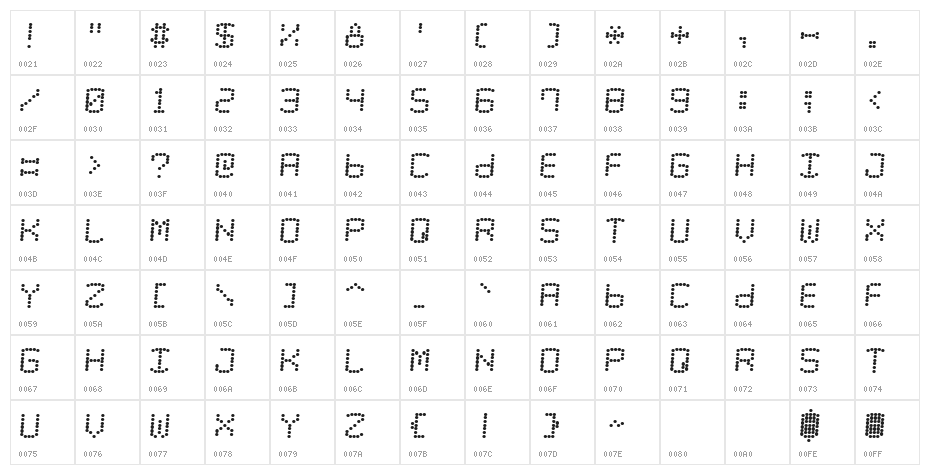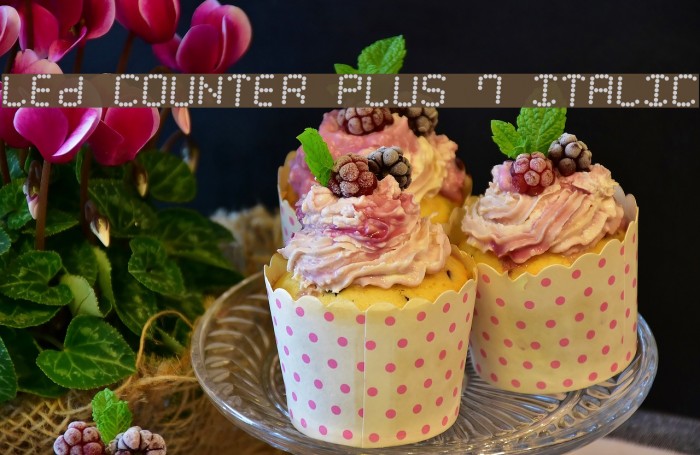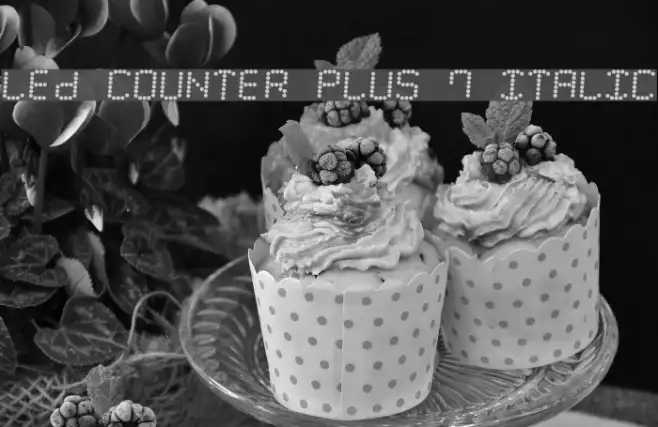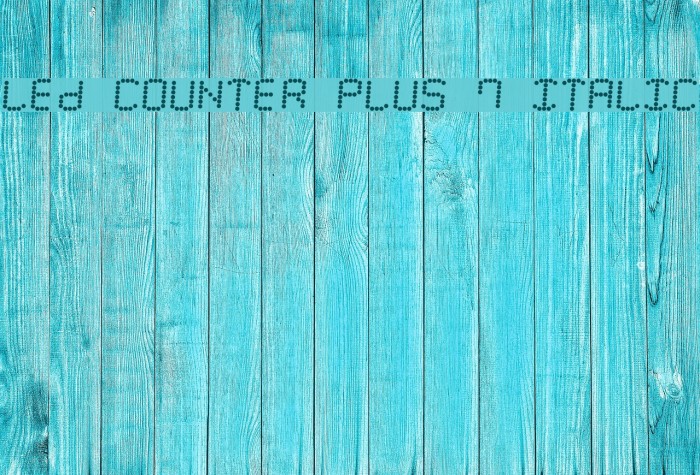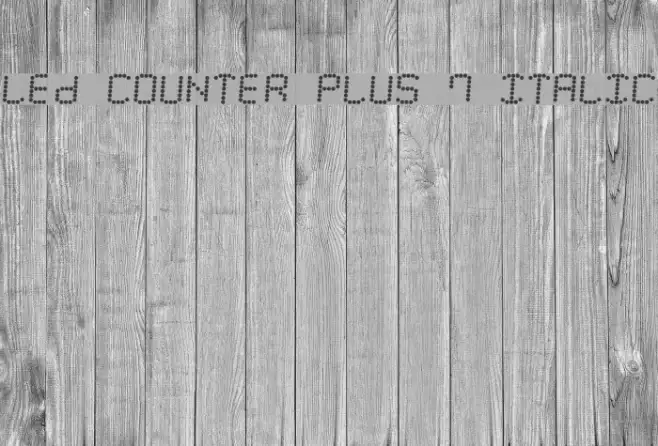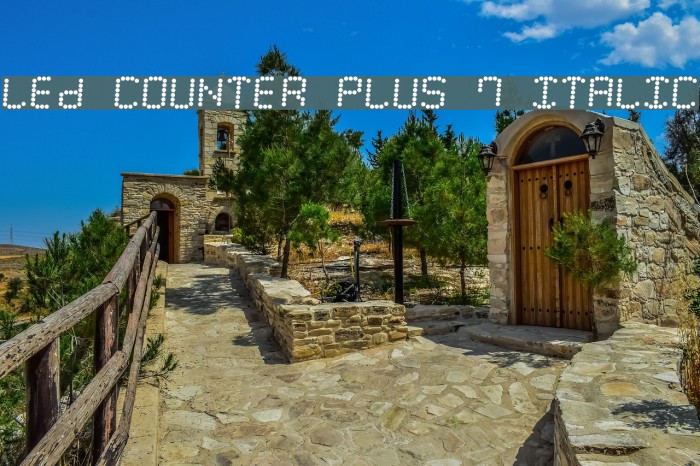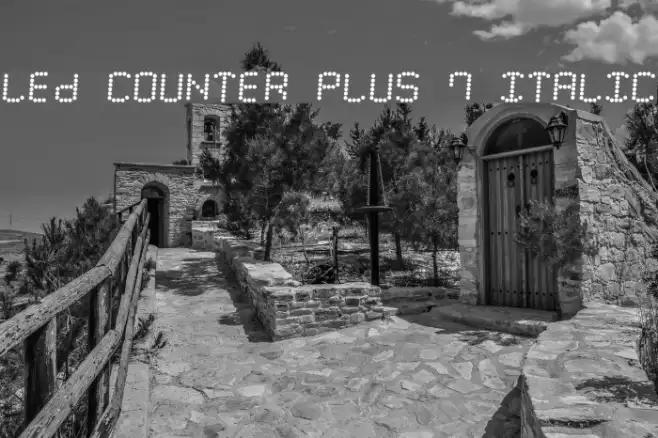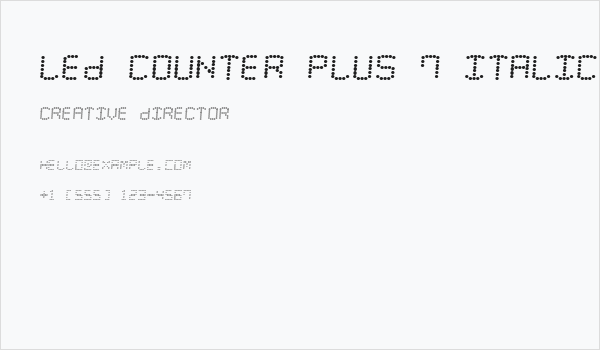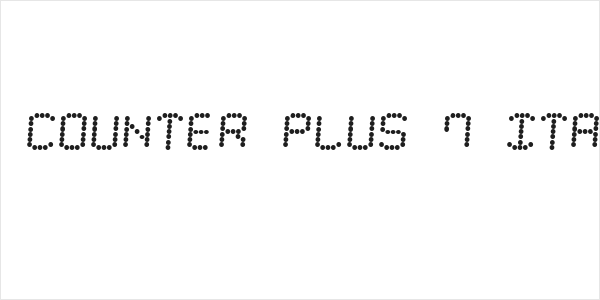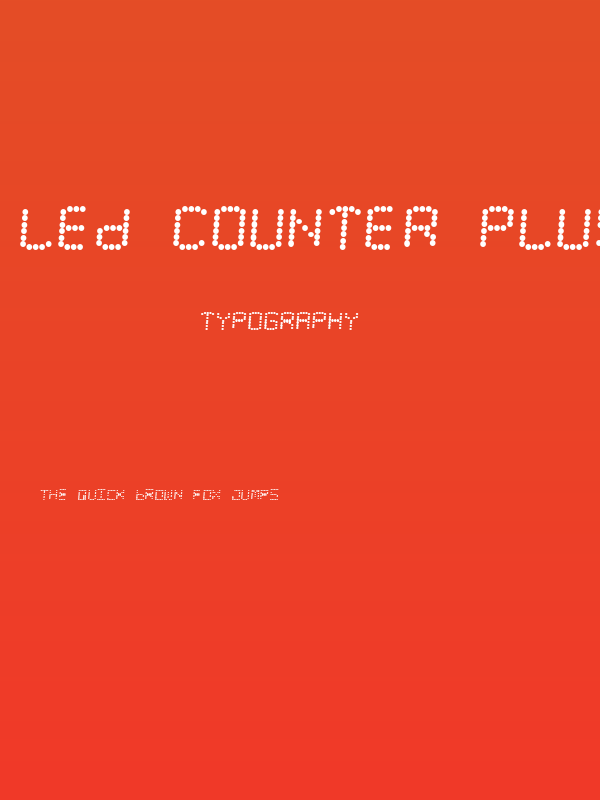
LED Counter Plus 7 Italic Font
LED Counter Plus 7 Italic Description
This font features a unique dot matrix style, reminiscent of digital displays and LED screens. Each character is composed of evenly spaced dots, creating a modern and technological aesthetic. The design is consistent across uppercase, lowercase, numbers, and special characters, maintaining a cohesive look. The italic style adds a dynamic and forward-leaning appearance, enhancing its futuristic feel. This font is particularly effective for digital-themed projects, offering a distinct and recognizable look that stands out. Its geometric structure ensures clarity and readability, even at smaller sizes.
| Use Case | Headlines, Logos, Digital displays |
| Proposed Projects | Ideal for digital displays, tech-themed designs, futuristic branding, and electronic device interfaces. |